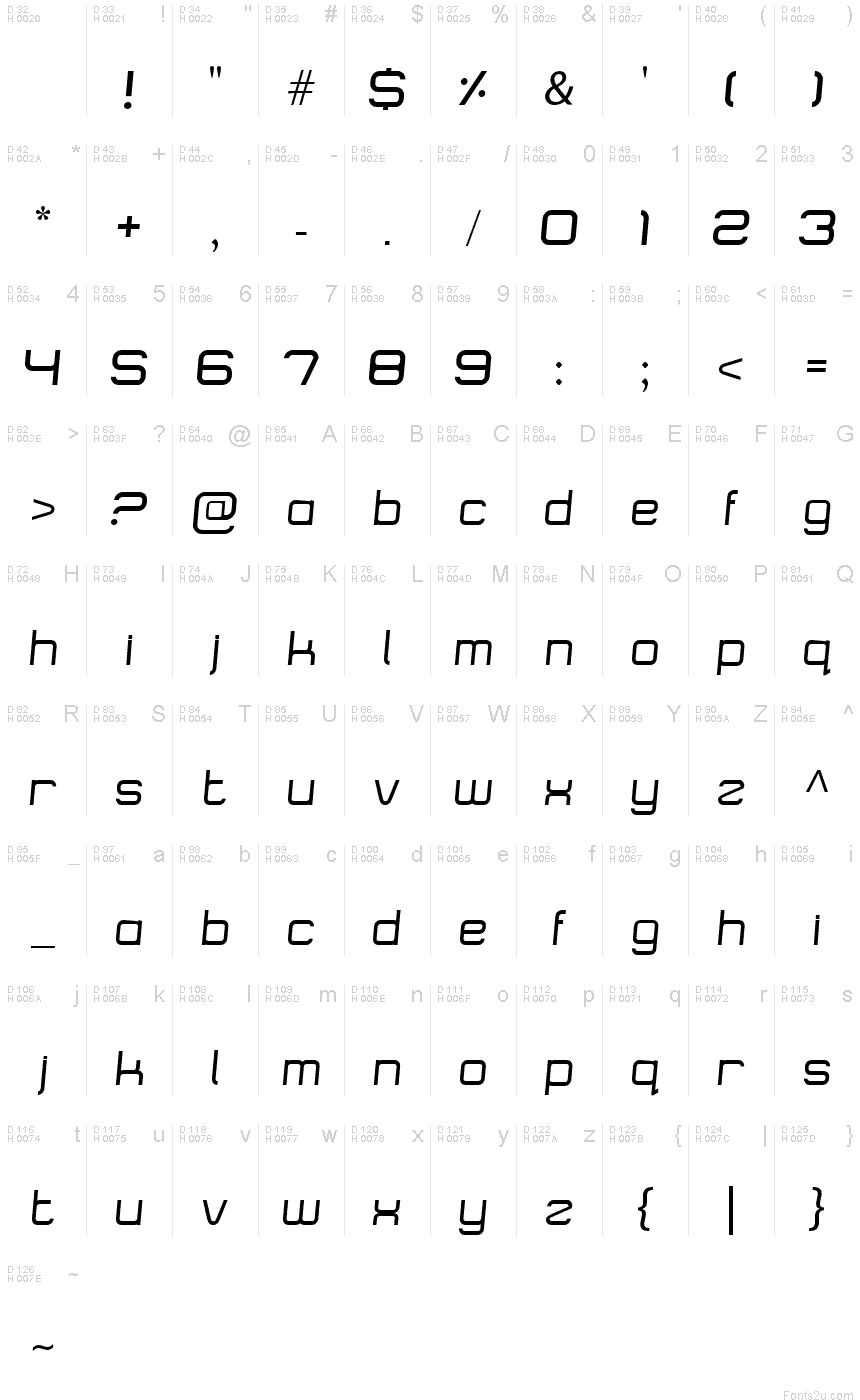
Logostile is a free modern display font with an extremely wide, forward-leaning silhouette and smooth, engineered curves. Its low, continuous forms are interrupted by tall uprights and clipped joins, creating sleek lettering with a strong early-digital flavor.
Packaging offers a convincing setting for this design, especially on electronics, sports equipment, and automotive products where speed and technical precision are useful cues. It can also shape event posters, game graphics, and electronic music merchandise, giving each project a ready-made brand identity through its stretched proportions and sharply streamlined stance.